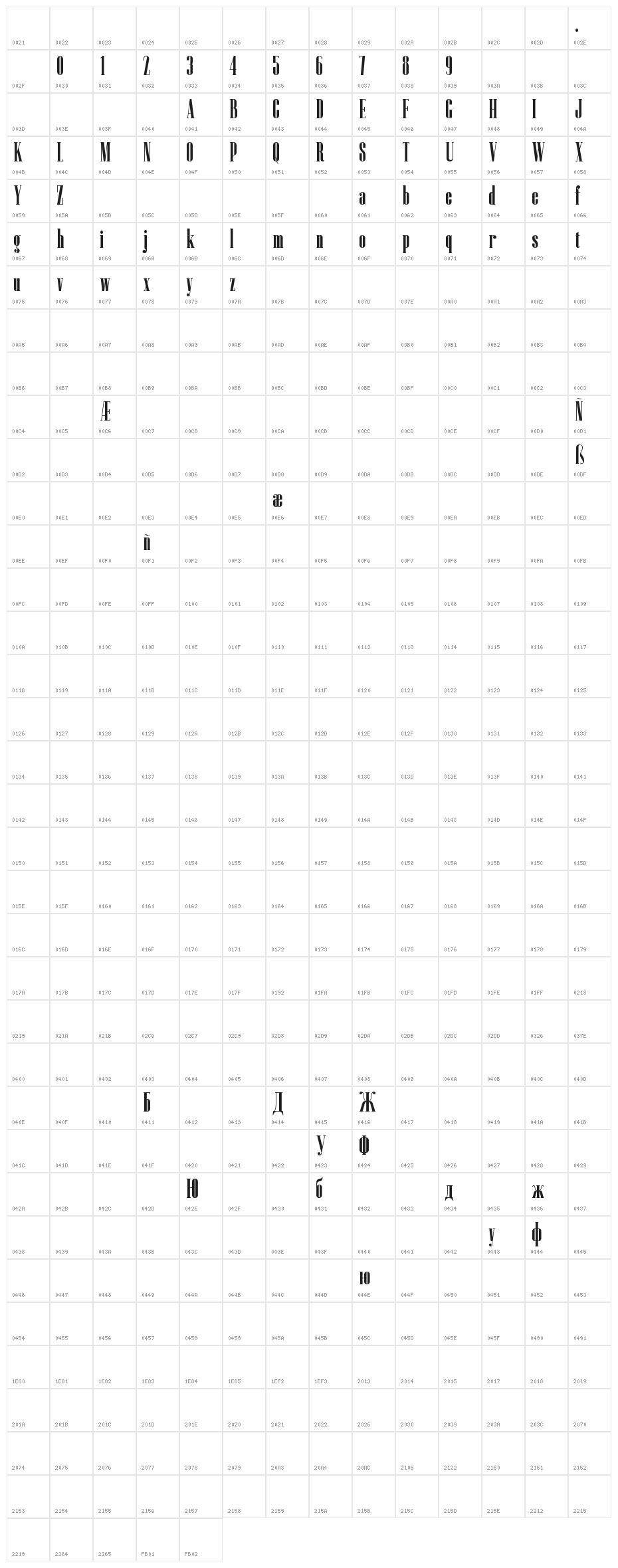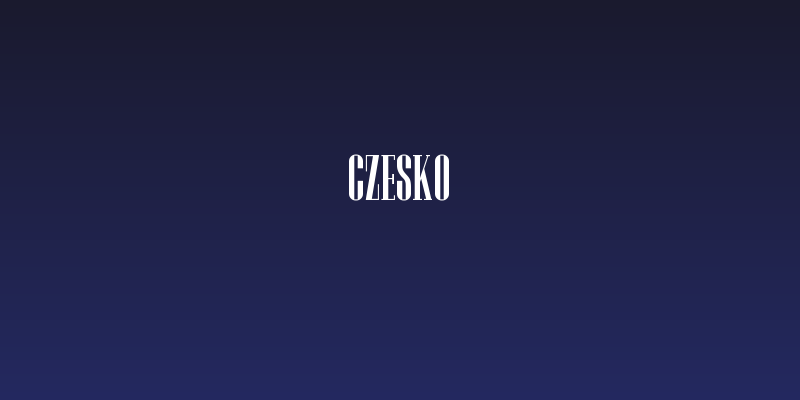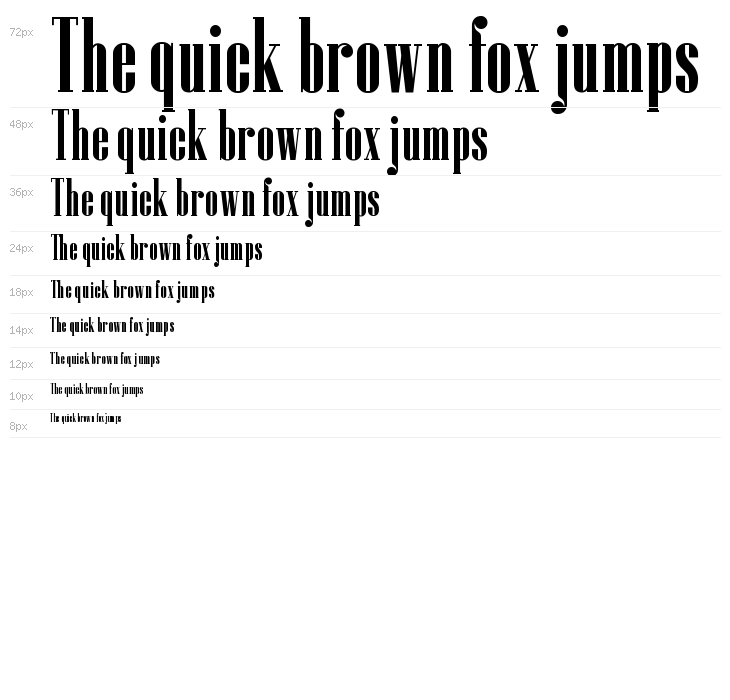
Czesko Font
Czesko Description
This font features a bold and striking design with tall, narrow characters that exude a sense of elegance and sophistication. The uppercase letters are particularly elongated, giving them a commanding presence, while the lowercase letters maintain a consistent style with slightly rounded edges. The numerals are equally bold, ensuring they stand out in any context. The font's overall appearance is reminiscent of classic serif styles, yet it incorporates modern elements that make it suitable for contemporary use. The high contrast between thick and thin strokes adds to its dramatic flair, making it ideal for attention-grabbing headlines and titles.